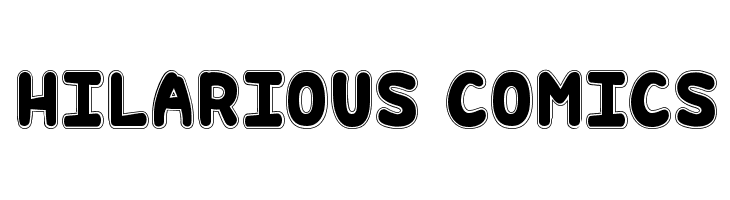
• Hilarious
A playful, bold font with rounded, cartoonish characters.
• Hilarious Comics
A bold, outlined font with a playful, comic-like style.
• Hilarious Comics light
A playful, bold typeface with rounded, thick strokes and a comic-like style.